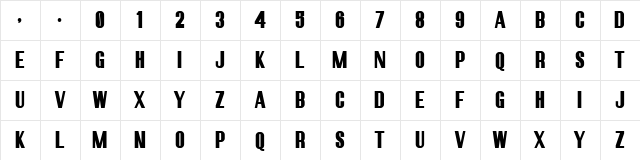
Robusta II Sans Regular
| Foundry | Runsell Studio |
| Designer | Saeful Maarif |
Design Context for Robusta II Sans Typeface
Robusta II Sans takes a measured approach to typography — its balanced proportions and neutral character make it a reliable workhorse for both digital and print work.